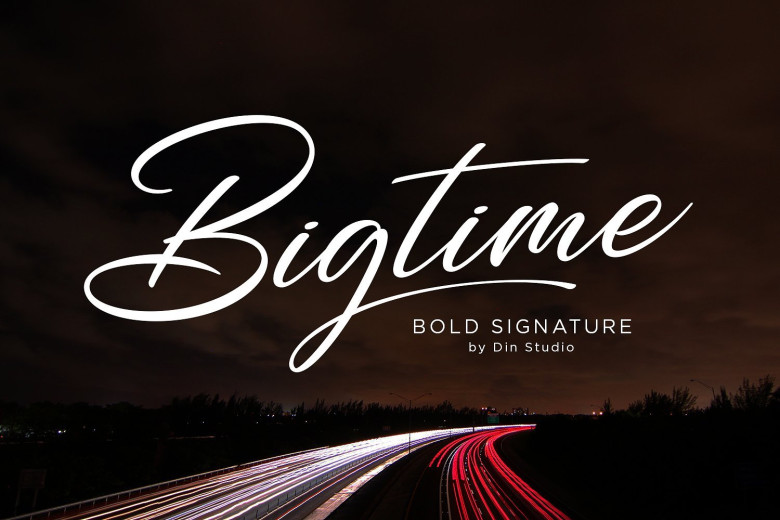
Bigtime Script Font
Hello guys. A new bold signature font. Introducing Bigtime Font. Bigtime Script come with natural, modern and luxury style. “Powerfull identity will give more value for your work”, so you need this in your branding. Bigtime Font is perfect for branding, wedding invitations, magazines, mugs, business cards, quotes, posters, and more you can use on your big project would be very beautiful.